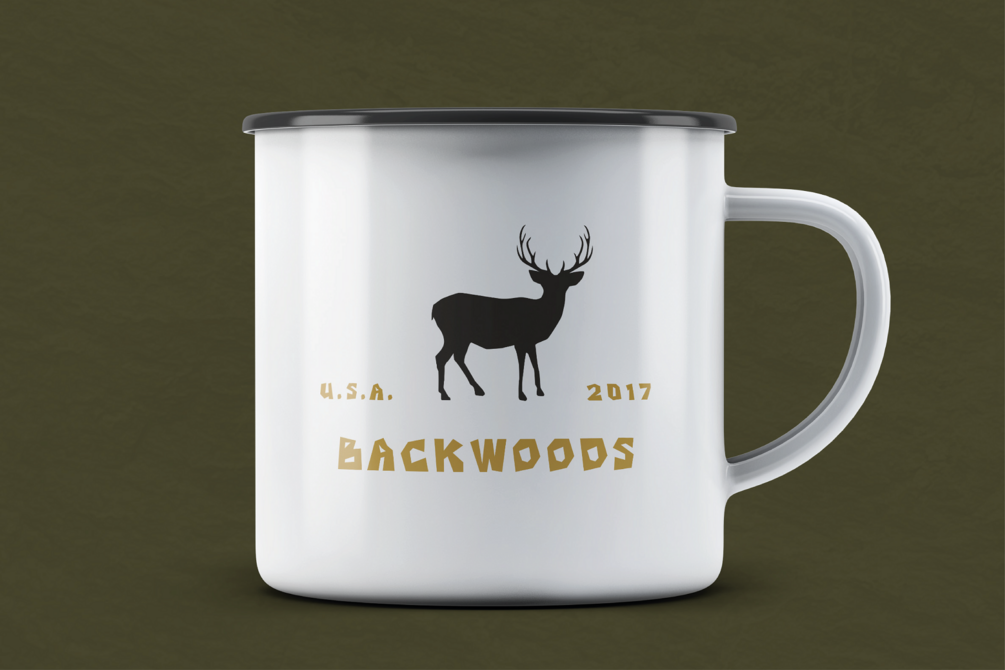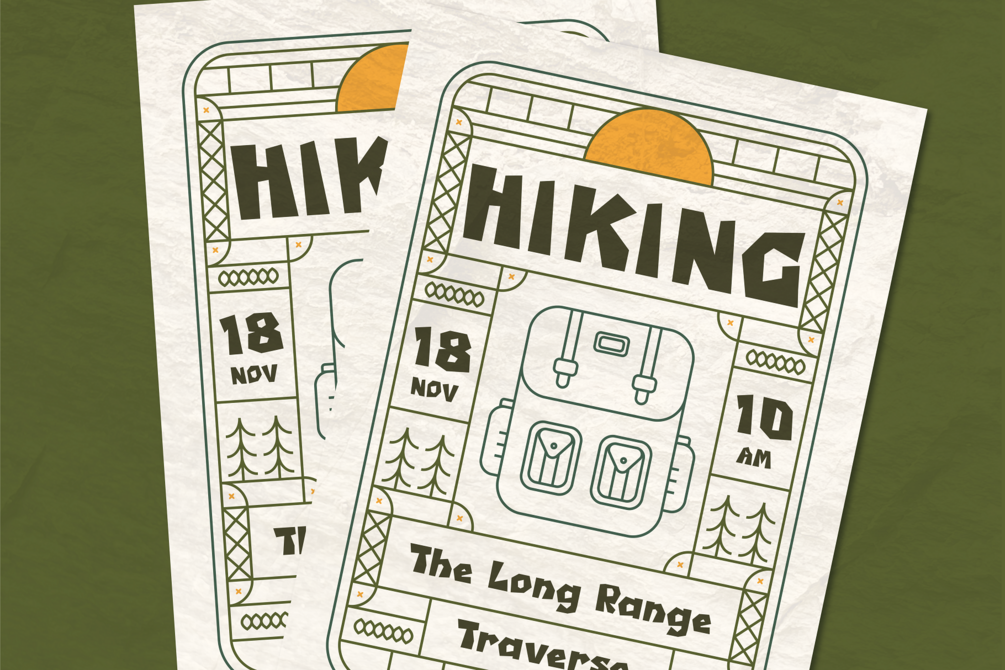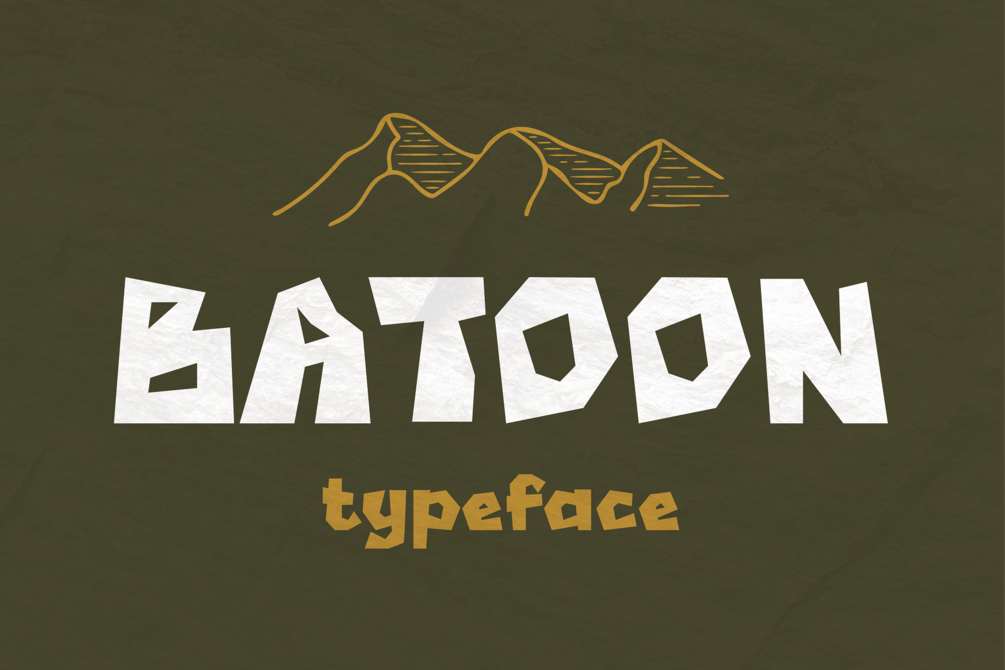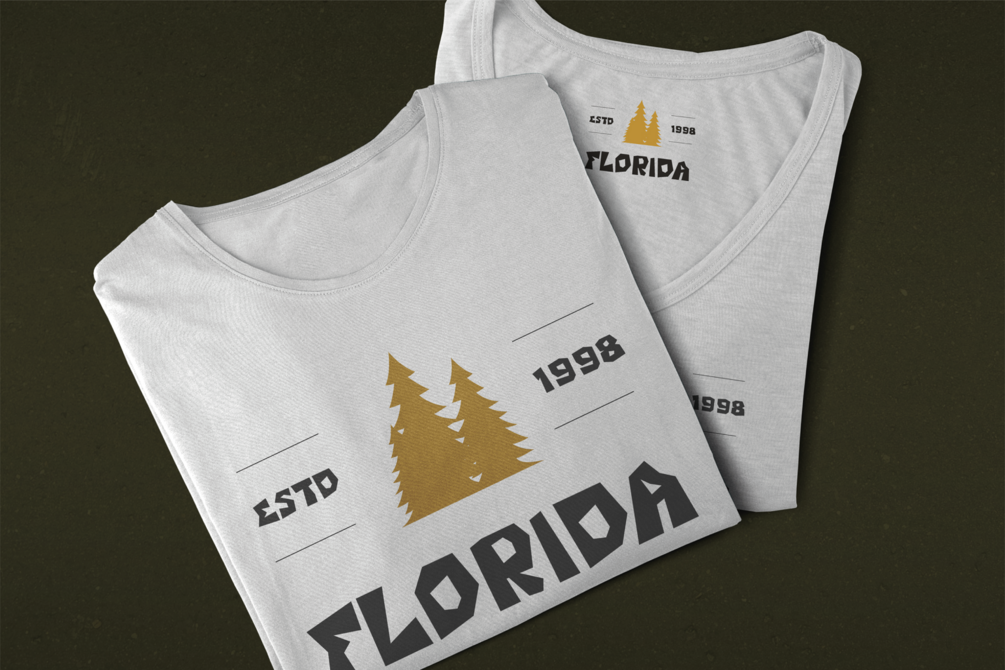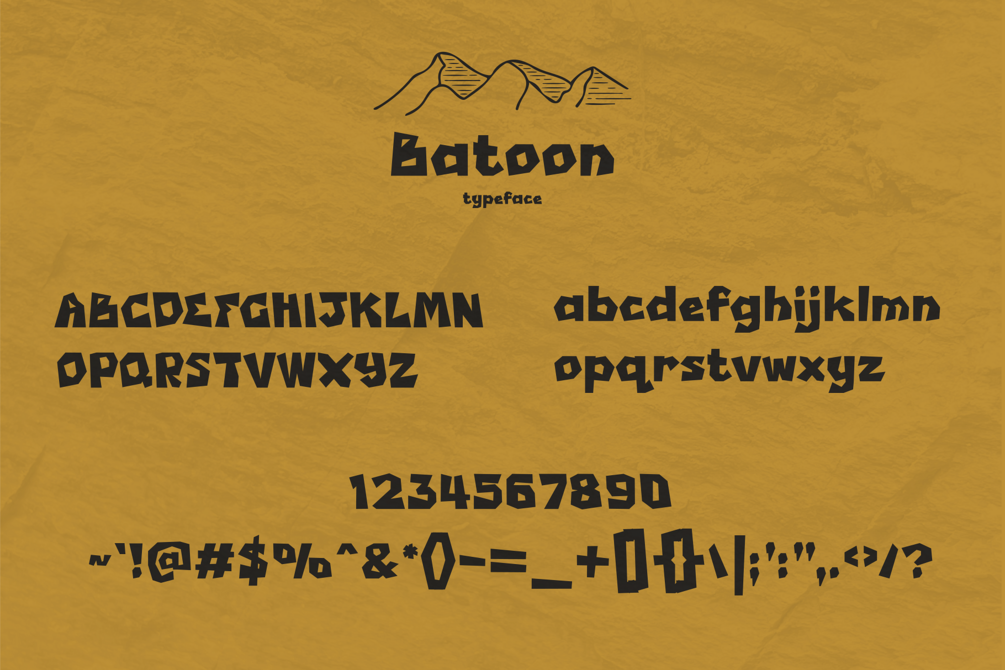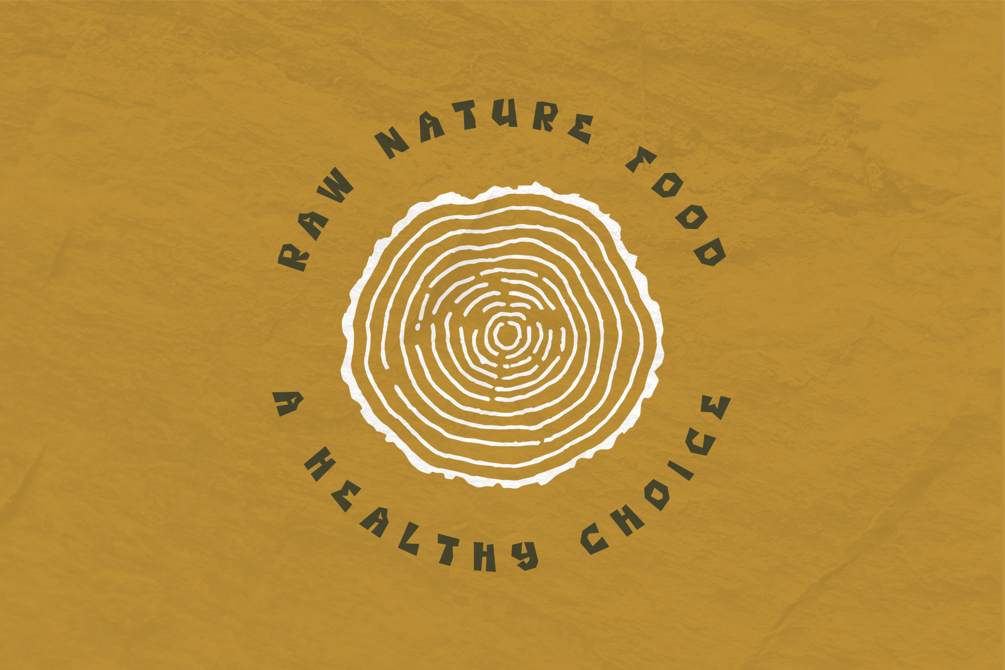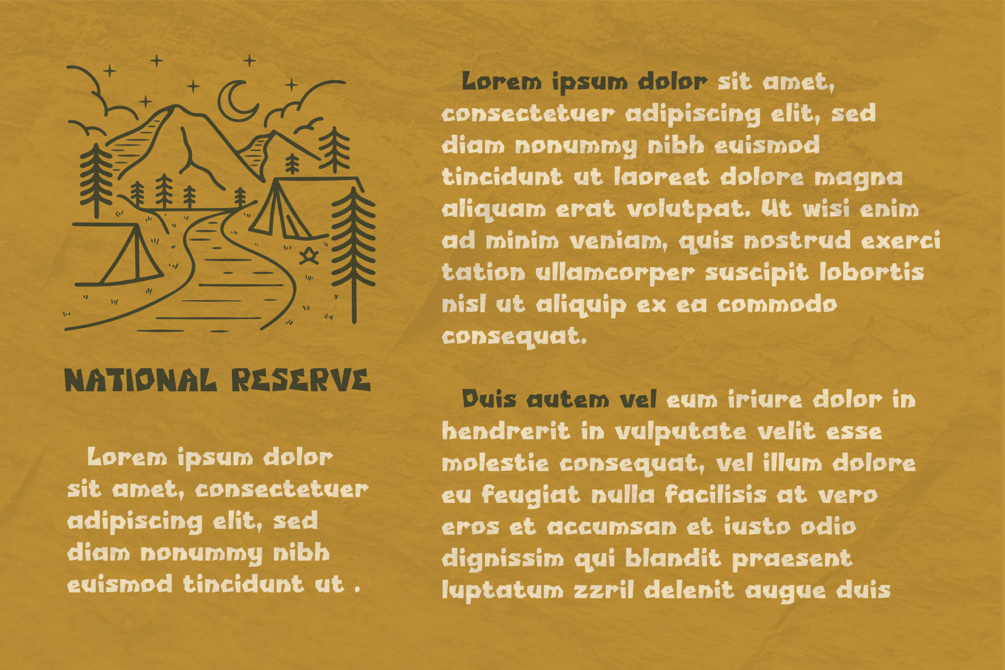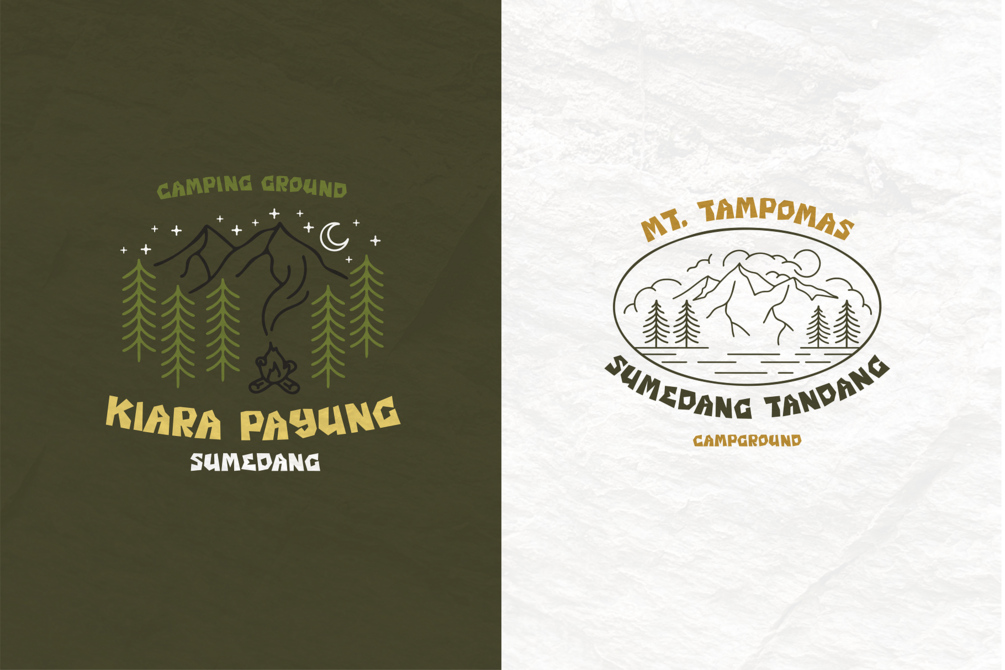
Batoon - Rugged Typeface
Batoon is a handmade, sharp sans-serif typeface that captures the rugged beauty of the Rocky Mountains. Its jagged edges and bold lines evoke the craggy peaks and rocky trails of the mountain range, making it the perfect choice for any hiking or camping project.
Each letter is crafted with care, imbuing your designs with a sense of handcrafted authenticity and natural ruggedness. It's as if each letter is a marker on a trail, guiding you through the breathtaking vistas and untamed wilderness of the great outdoors. With Batoon, you can create designs that are as adventurous and unforgettable as the mountains themselves, inspiring your audience to embrace their inner explorer and explore the great outdoors.